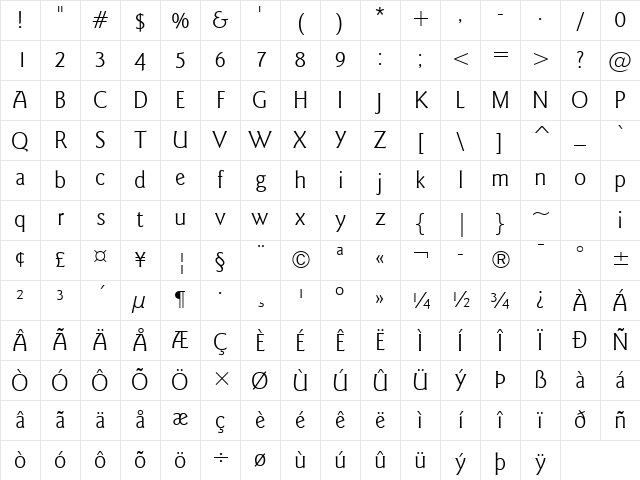
GoudySans Lt BT Light
Design Context for GoudySans Lt BT
GoudySans Lt BT is a composed and adaptable typeface that performs quietly and consistently across a wide range of design contexts. Its slender proportions lend an understated elegance to any composition.